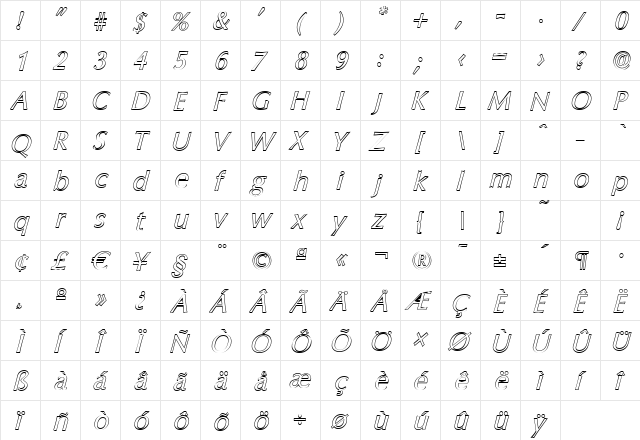
EricBeckerOutline Italic Font Preview
EricBeckerOutline Italic
EricBeckerOutline Italic Font Details
Design Context for EricBeckerOutline Typeface
EricBeckerOutline is built around its visual character rather than neutral utility — its distinctive forms are designed to make an impression at display sizes. The dynamic lean of this cut emphasises speed and emphasis in any layout.
Font Pairing: Pair with a clean neutral sans-serif for body copy to let EricBeckerOutline's character lead without overwhelming the composition.
Pro Tip: Use EricBeckerOutline exclusively at display sizes — it was designed to be seen, not read at length. Let a neutral companion handle body copy.